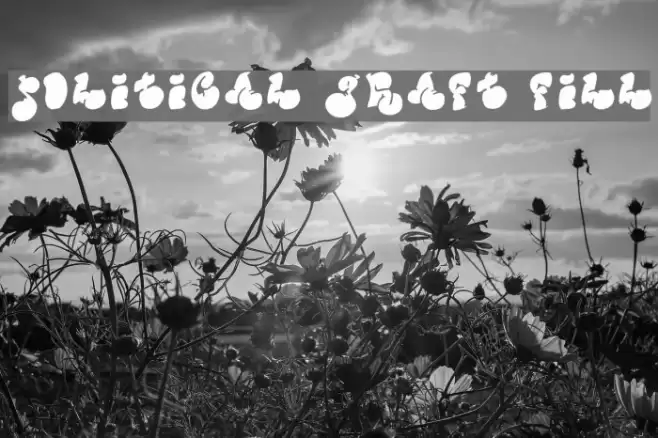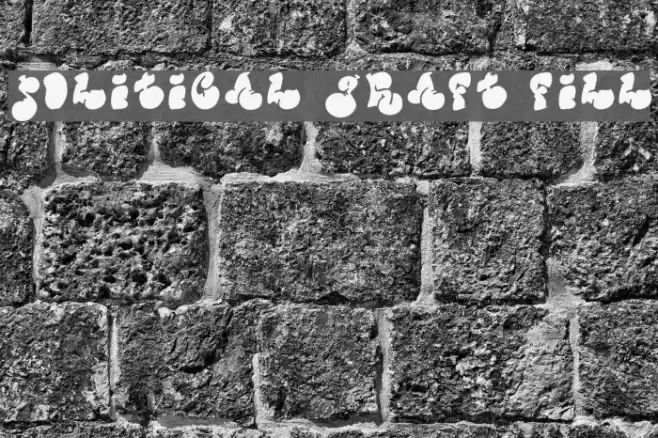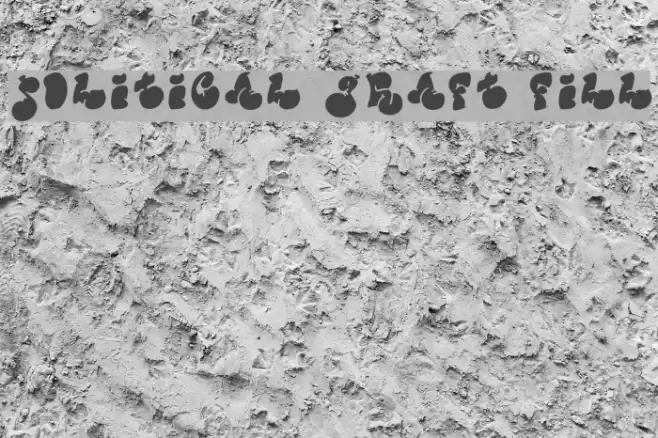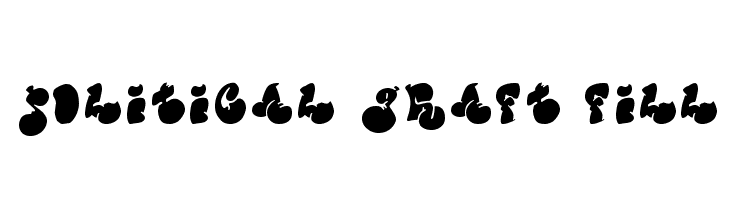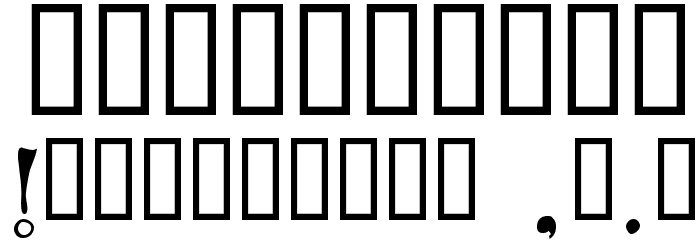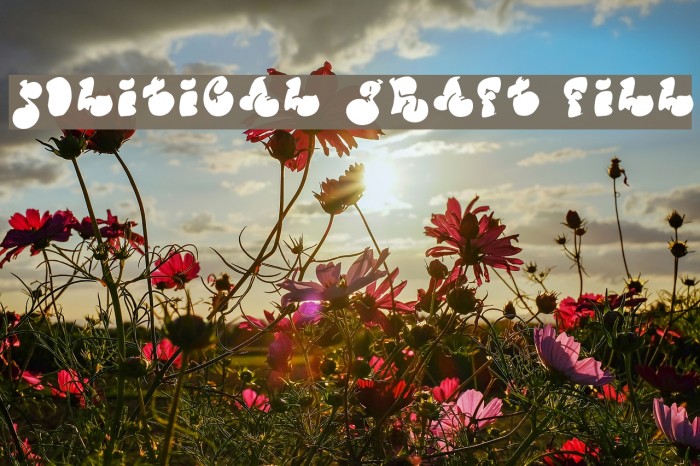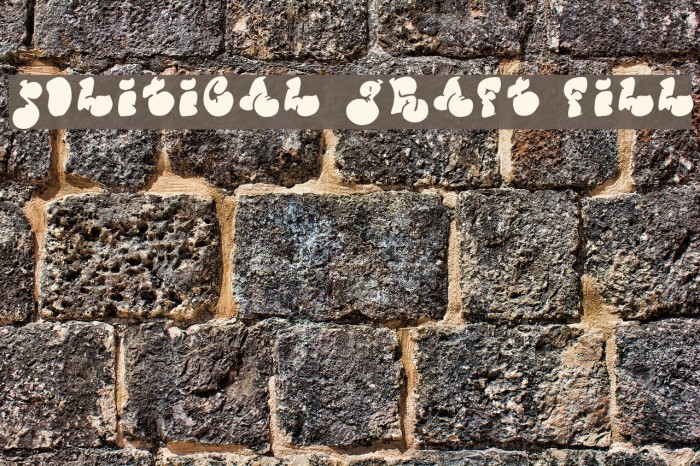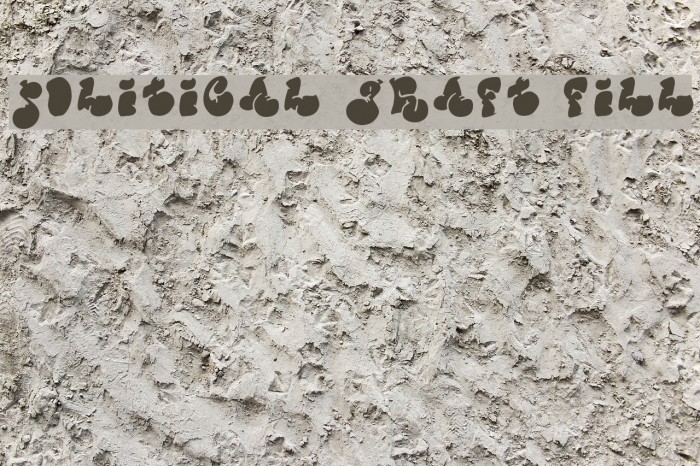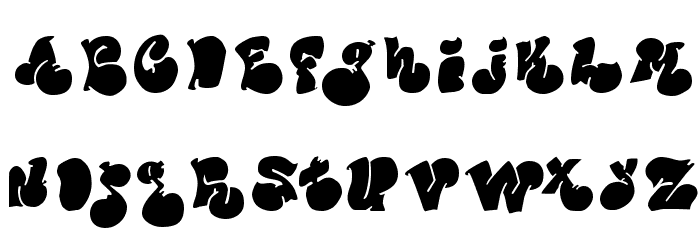
Political Graft Fill Font
Political Graft Fill Description
This font features a bold and playful design with a distinctly decorative style. The characters are heavily stylized, incorporating unique shapes and exaggerated curves that give each letter a whimsical and artistic appearance. The font's boldness is evident in its thick strokes, which create a strong visual impact. The letters are creatively distorted, adding a sense of movement and dynamism. This font is ideal for projects that require a fun and eye-catching typeface, such as posters, event flyers, or branding for creative industries. Its unique style makes it unsuitable for body text but perfect for headlines or logos where a strong visual identity is desired.
A bold, playful, and decorative font with exaggerated curves and unique shapes from Graffiti fonts.
- Proposed Projects: Ideal for posters, event flyers, creative branding, and eye-catching headlines.